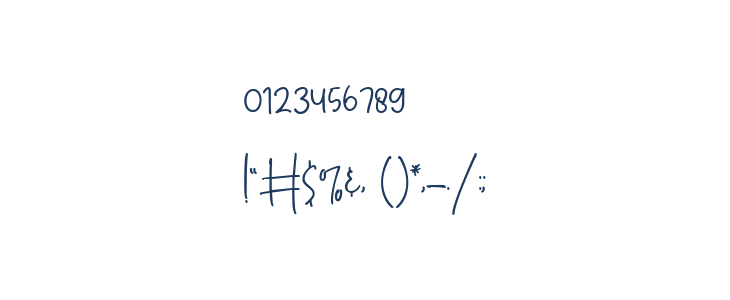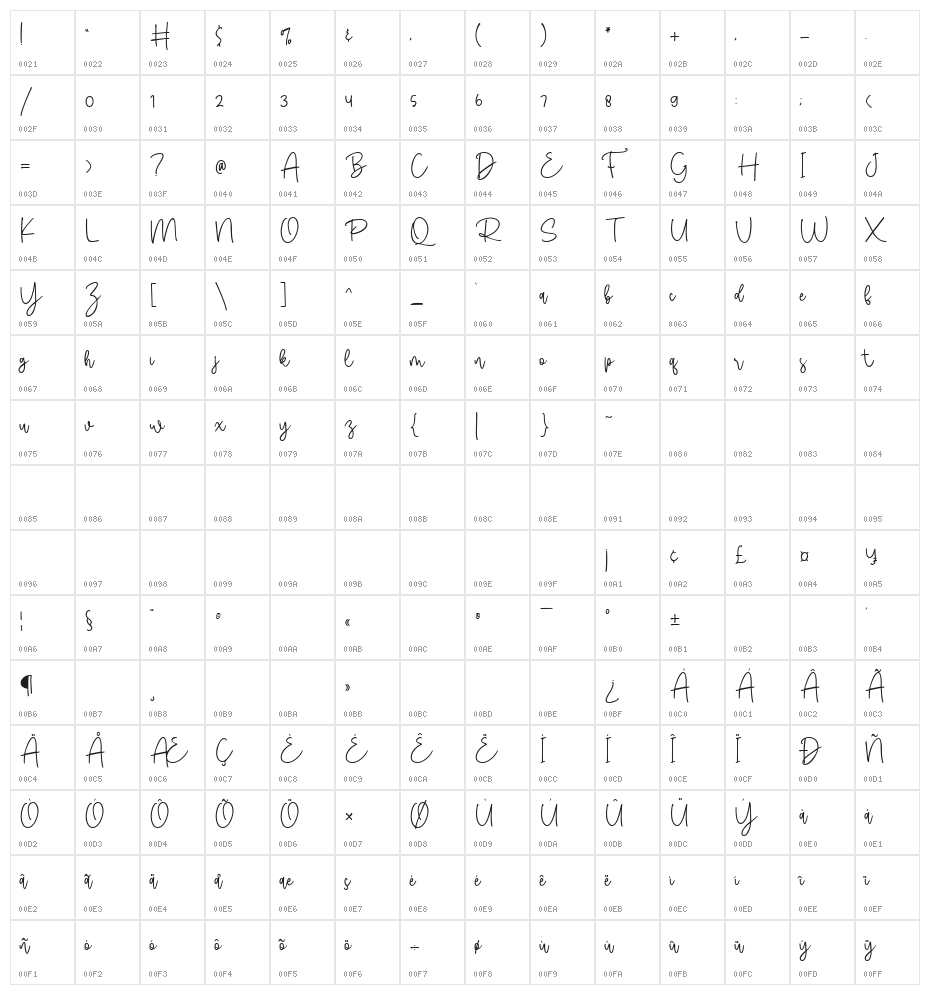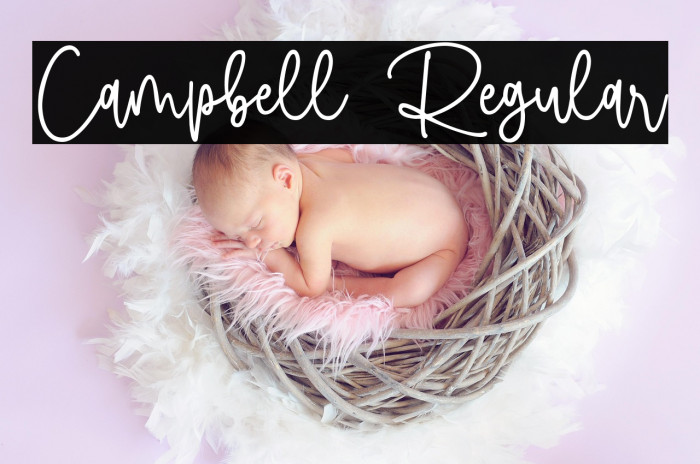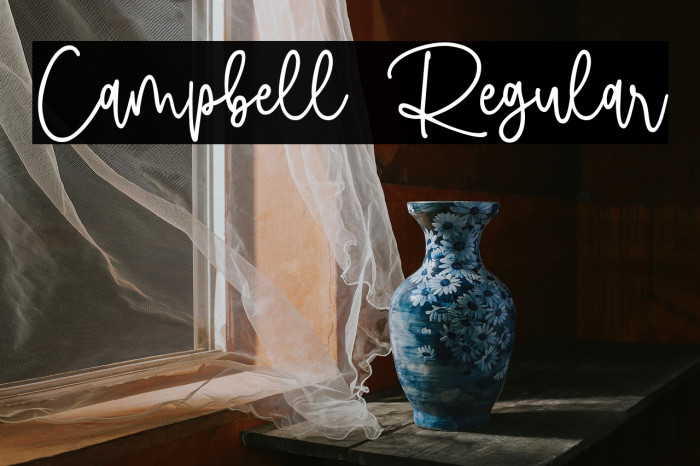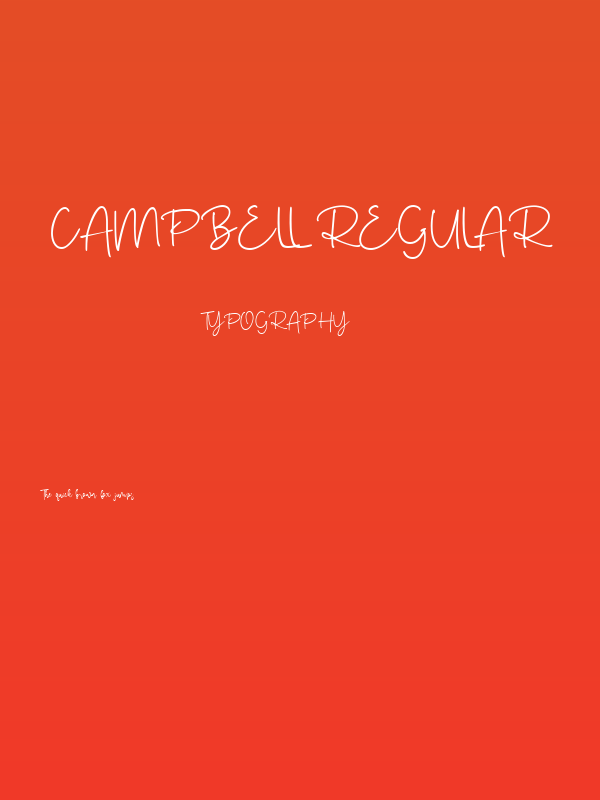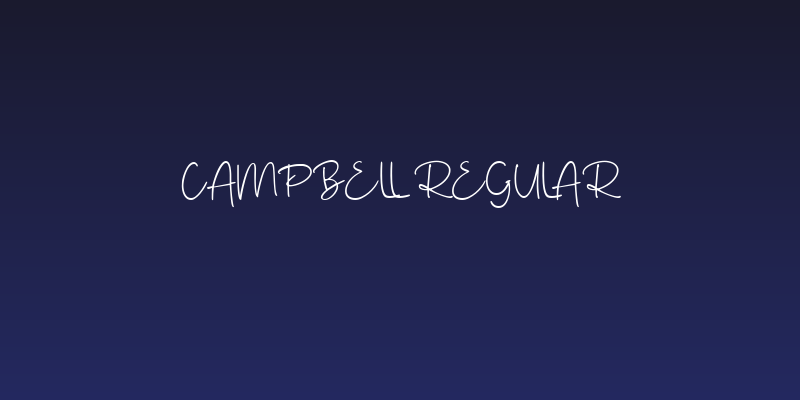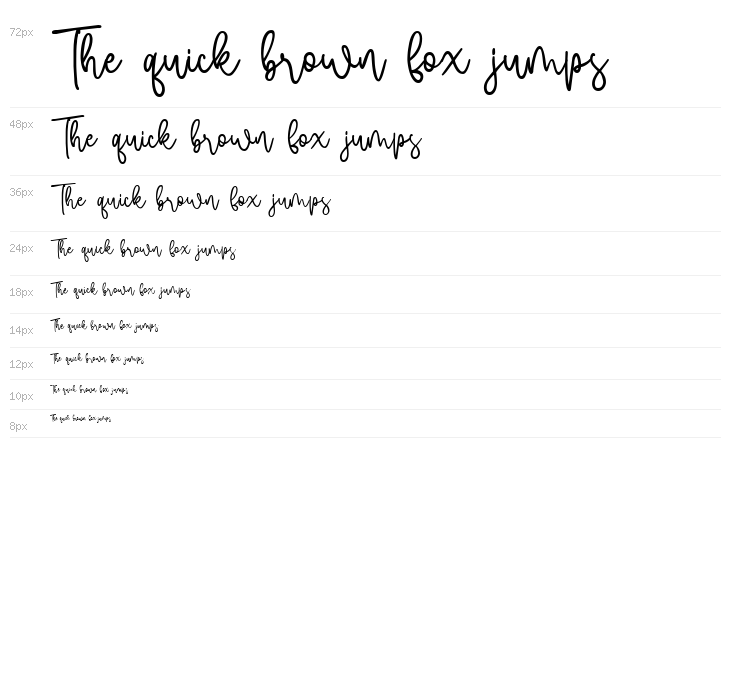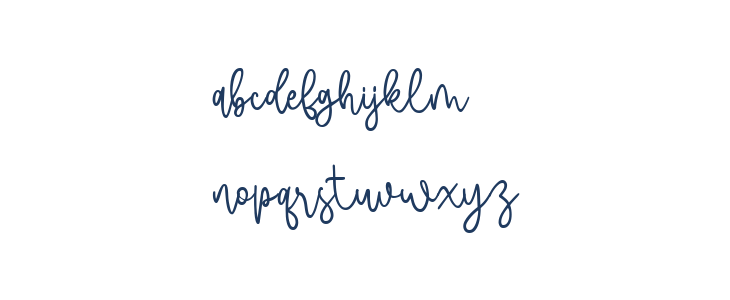
Campbell Regular Font
Campbell Regular Description
This font exudes a playful and casual handwritten style, characterized by its flowing, cursive-like strokes. The uppercase letters are tall and slightly narrow, with a consistent looped design that adds a whimsical touch. The lowercase letters maintain a smooth, connected script, enhancing the font's informal and friendly appearance. Numbers and special characters are crafted with the same fluidity, ensuring a cohesive look across all elements. The overall design is clean and legible, making it suitable for various creative applications.